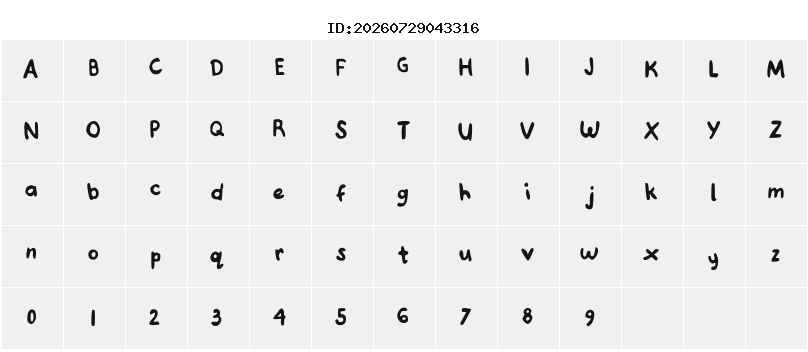
JoanneDeoxyribose Preview
• Font Name: JoanneDeoxyribose
• Full Font Name: JoanneDeoxyribose
• PostScript Name: JoanneDeoxyribose
About JoanneDeoxyribose.otf
JoanneDeoxyribose.otf is a modern, elegant sans-serif font designed for ultimate readability and visual harmony. Perfect for branding, headlines, web design, and print materials.